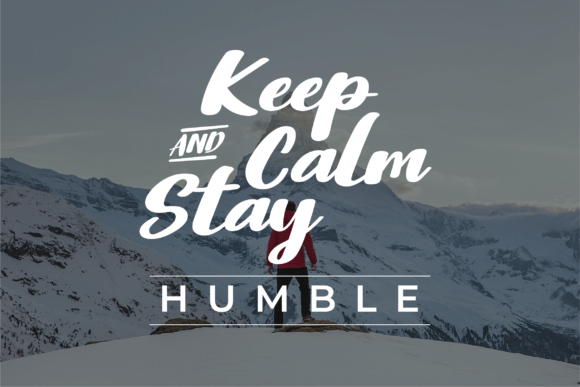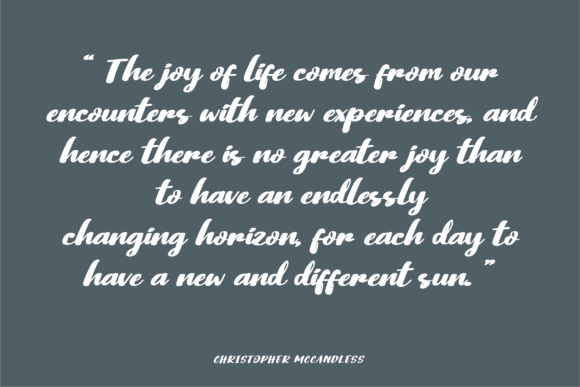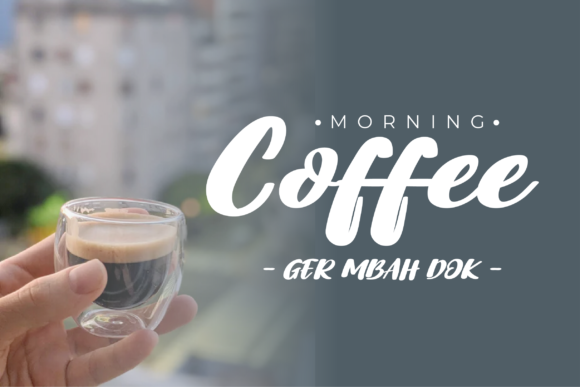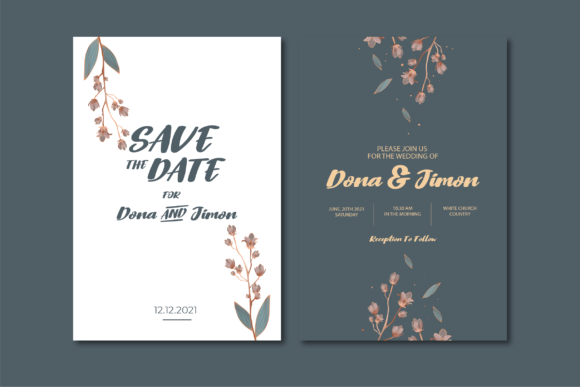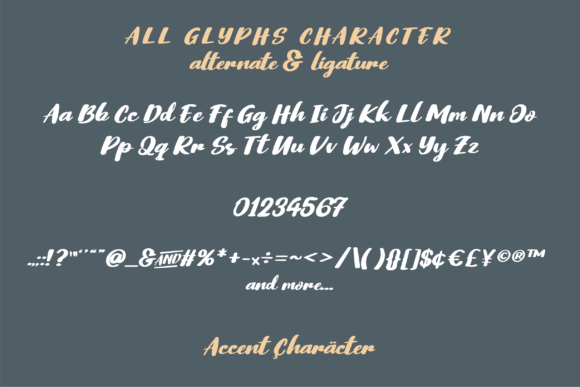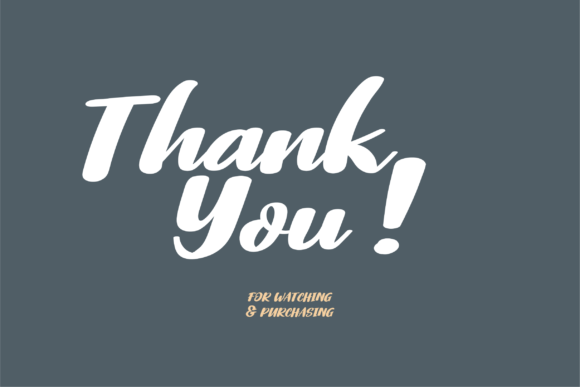
Introduction to Qoprol Roll Font
Have you ever been working on a creative project, pouring your heart and soul into it, only to realize that the perfect font is missing? That’s exactly what happened to many designers when they discovered the Qoprol Roll Font. Its unique blend of classy calligraphic influences and modern flair makes it the perfect addition to any project.
Imagine having a font that can elevate your designs from ordinary to extraordinary, with its high-quality, handwritten style that’s sure to captivate your audience. With the Qoprol Roll Font, you can achieve just that, and more. Whether you’re working on a branding project, creating a marketing campaign, or simply need a design resource to make your work stand out, this font is sure to be a valuable asset.
Key Features of Qoprol Roll Font
- High-quality design resource with a unique, creative style suitable for various projects
- Features a transparent background, allowing for seamless integration into any design
- Includes high-resolution designs, with a minimum resolution of 300 DPI for crisp and clear output
- Perfect for use in creative projects, such as logos, branding materials, and advertising campaigns
Honest Review: Qoprol Roll Font
I recently had the chance to work with the Qoprol Roll Font for a creative project and was pleasantly surprised. As a designer, I’m always on the lookout for high-quality design resources that can elevate my work. This font definitely fits the bill.
One of the things that works well with the Qoprol Roll Font is its versatility. It’s a great addition to any design project, from logos to typography-heavy compositions. The font is easy to read and the transparent background makes it a great choice for overlays or compositing.
- ✨ Great for creative projects, especially those with a bold and playful vibe
- ✨ High-quality design that’s sure to impress
However, there are a few limitations to consider. The font is a bit on the heavier side, which can make it difficult to use in certain situations. Additionally, the transparency can sometimes make the text hard to read if not used correctly.
- ⚠️ May be difficult to read in certain lighting conditions
- ⚠️ Can be heavy and overwhelming in large quantities
Overall, I was impressed with the Qoprol Roll Font and would definitely recommend it to designers looking for a high-quality, creative resource. Just be mindful of the limitations and use it thoughtfully in your designs.
Tips for Getting the Most Out of Qoprol Roll Font
To get the most out of the Qoprol Roll Font, use it with a transparent background to create a modern and sleek design. You can also combine it with other design elements, such as images and graphics, to create a unique and eye-catching design.
The Qoprol Roll Font is ideal for a variety of creative projects, including:
- Marketing materials, such as brochures and flyers
- Website design and development
- Graphic design and art
Can I use the Qoprol Roll Font with a transparent background, or does it have a fixed color?
The Qoprol Roll Font is designed to be versatile and can be used with a transparent background. The font’s design allows for easy color customization, making it a great choice for designs that require a high level of flexibility and creativity.